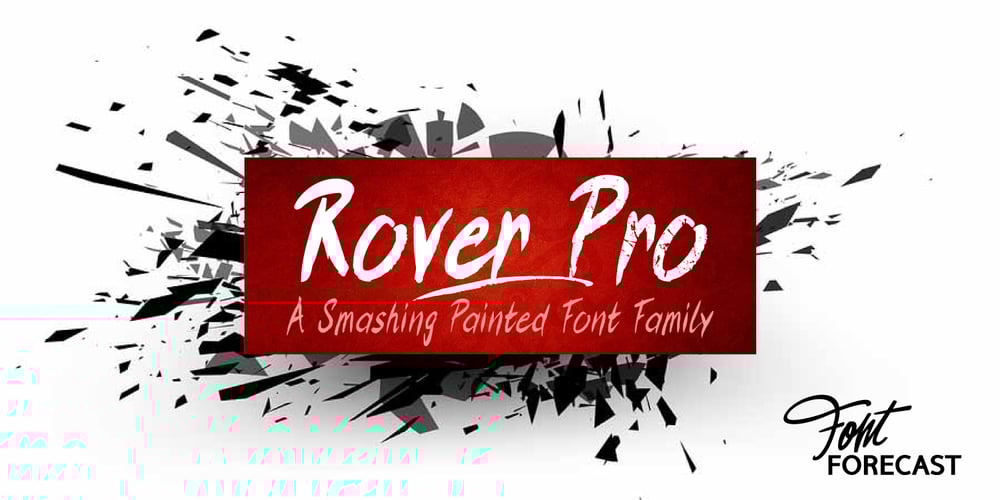
Rover Pro Font Family was designed by Rob Versluys and published by Fontforecast. Rover Pro contains 5 styles and family package options. Rover Pro is a hand painted font family that comes in 5 styles: Regular, Bold, Bold Shadow, Bold Rough and Extra. It was designed with retail in mind, but is also perfectly suited for other uses. The flat brush that was used to hand paint all 424 glyphs creates a nonchalant stroke that adds a personal touch and plenty of pizzaz to your design. Combine Rover Pro Bold Shadow with the Bold and Rough styles for more variety and beautiful designs. For extra fun Rover Pro Extra adds another 85 glyphs to play around with. All in all Rover Pro is a smashing painted font family for virtually every project. Rover Pro is PUA encoded. This means that all Rover Pro’s characters are fully accessible via Character Map or Font Book (that come with your PC or Mac).